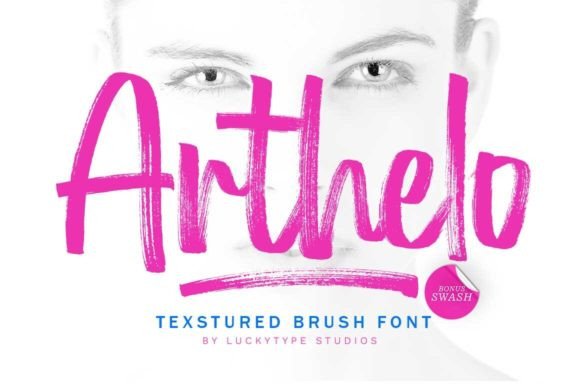
Dive into the world of Arthelo, a remarkable script font family, meticulously crafted by luckytype.font. This distinctive textured brush font exudes a bold style and contemporary design approach. Its naturally handcrafted essence shines through every stroke, making it an exceptional choice for title designs across various mediums.
Adorn your clothing designs with Arthelo's bold charm, creating unique and captivating statements. Extend its magic to invitations, adding a personal touch that leaves a lasting impression. Elevate book titles with its distinctive flair, drawing readers into the captivating worlds within. Unleash your creativity in stationery designs, transforming everyday items into works of art.
Capture the essence of heartfelt emotions with Arthelo's expressive strokes, making quotes come alive. Create a lasting impact with branding and logos that exude confidence and individuality. Design greeting cards that convey warmth and sincerity, touching the hearts of recipients. Embark on a fashion journey with Arthelo, adorning t-shirts with edgy and stylish designs.
Elevate packaging designs with a touch of sophistication, making products stand out on shelves. Craft captivating posters that demand attention, grabbing the interest of passersby. The possibilities are endless with Arthelo, a font that empowers you to transform your creative visions into tangible realities.